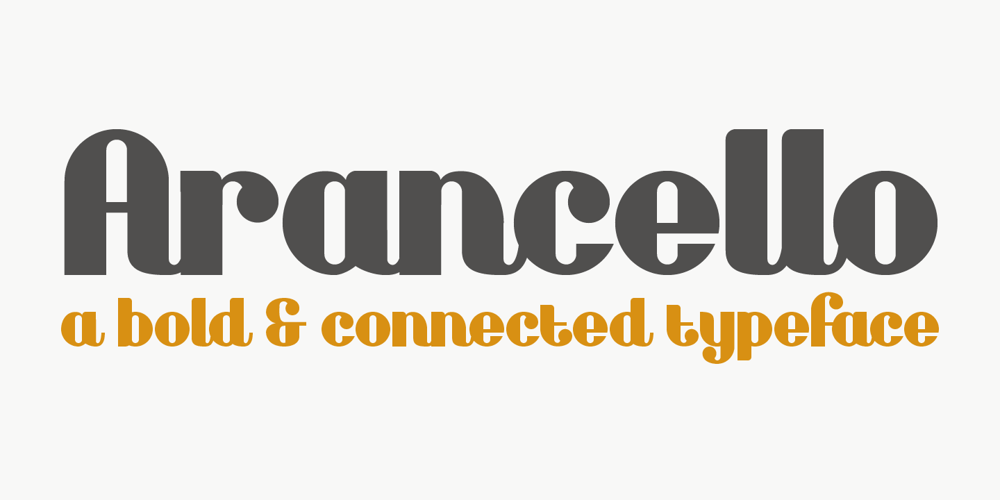
Arancello Font Family was designed by David Kerkhoff and published by Hanoded. Arancello contains 2 styles and family package options. Arancello is a lovely connected Didone. It is a rather bold typeface, so use it for headlines, posters and product packaging – anything, really, that needs a sophisticated and bold look. Comes with some ligatures for letters that just won’t connect well and a lovely alternate ‘s’.